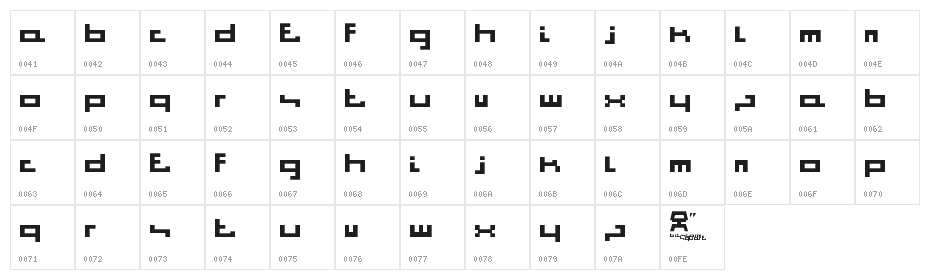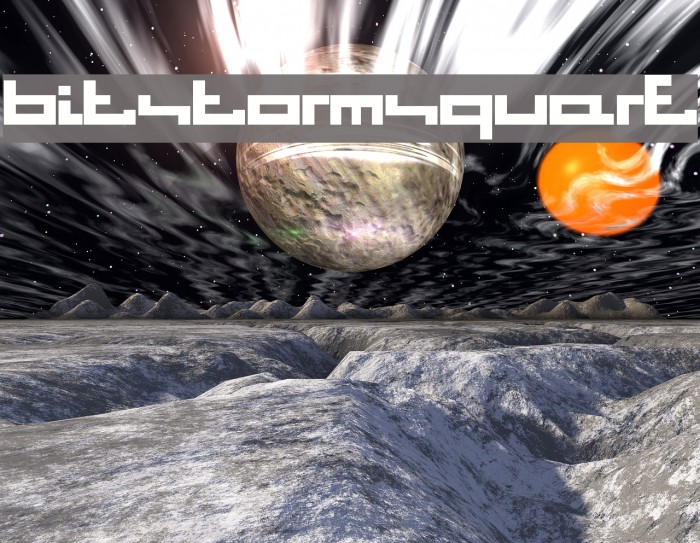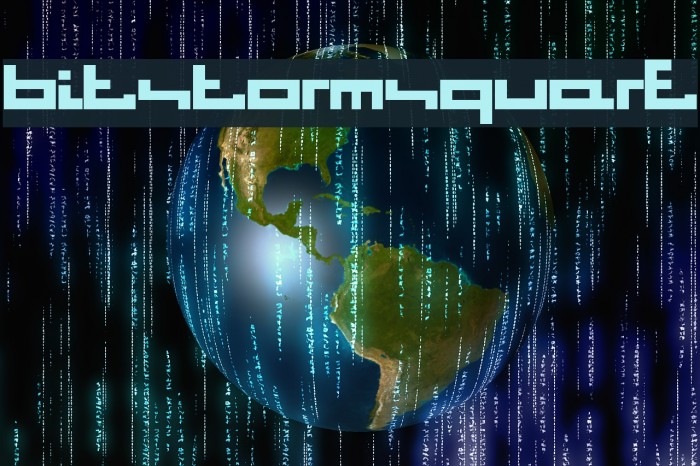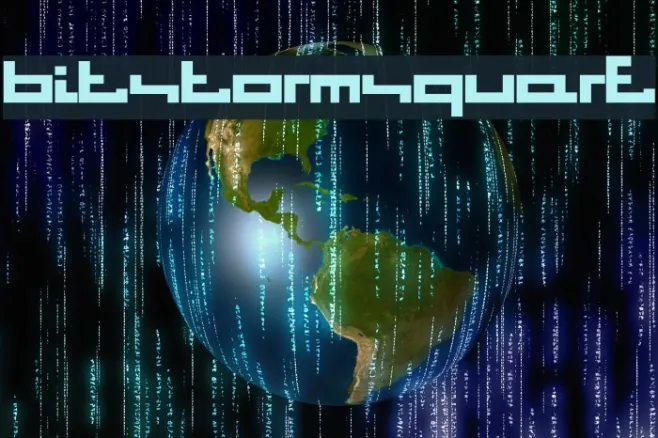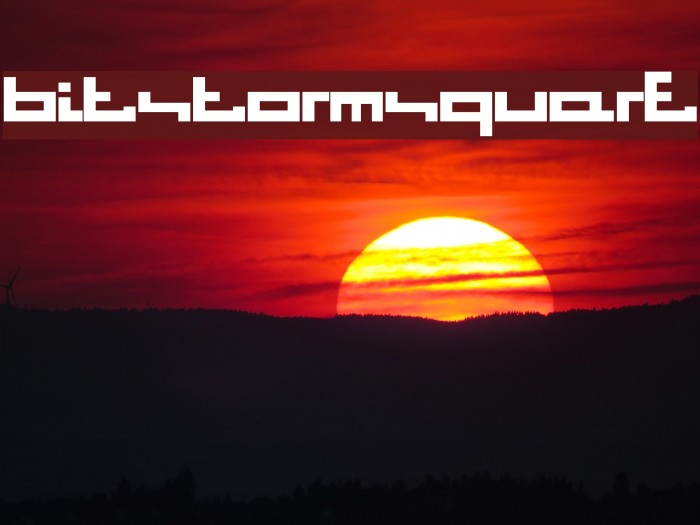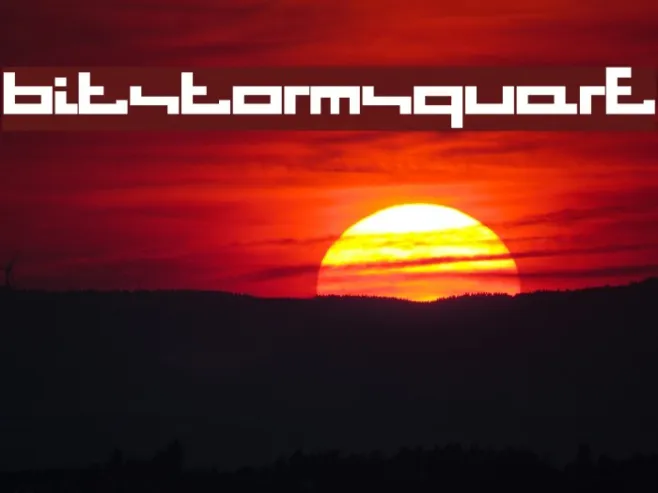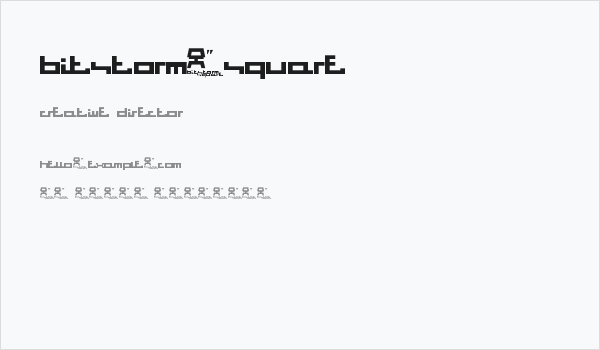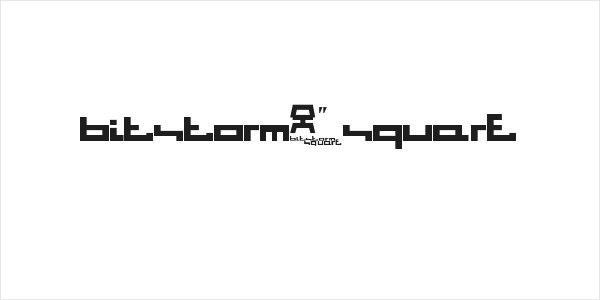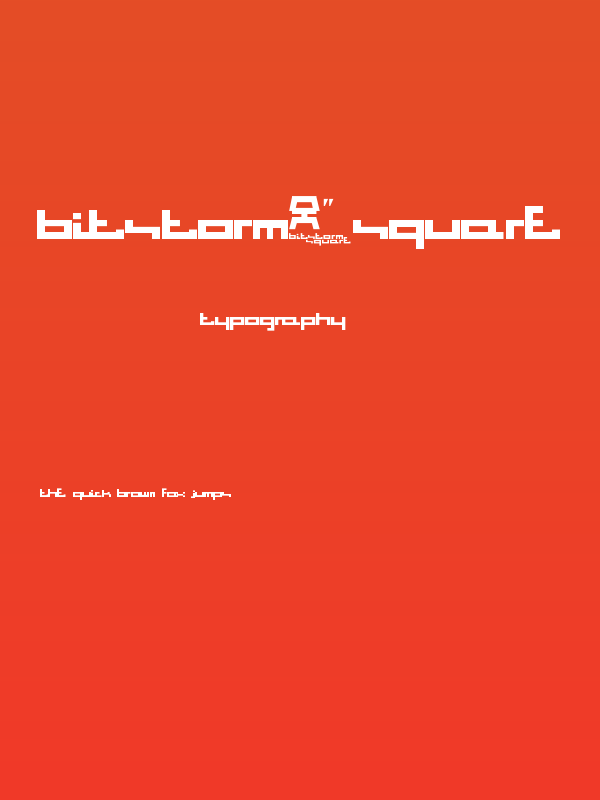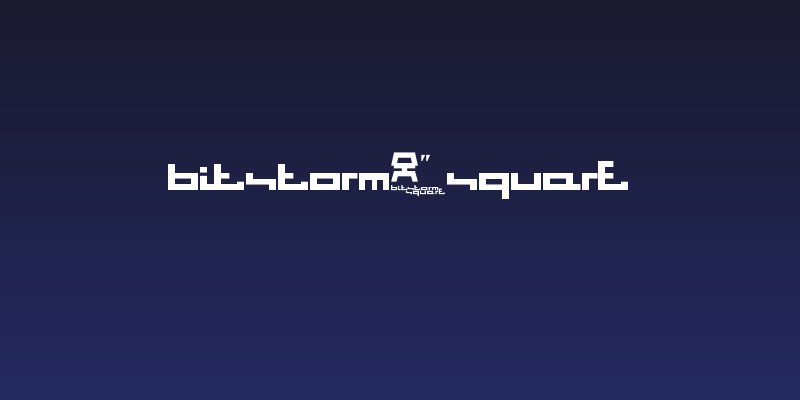
Bitstorm-SQUARE Font
Bitstorm-SQUARE Description
This font features a bold, geometric style with a distinctly digital and pixelated appearance. Each character is constructed with sharp, straight lines and right angles, giving it a blocky, square look reminiscent of early computer graphics or retro video games. The uniformity in the height of the characters creates a cohesive and structured feel, while the consistent thickness of the strokes adds to its bold presence. The font's design is minimalistic yet impactful, making it suitable for projects that require a modern and technological aesthetic.
Proposed ProjectsIdeal for video game graphics, tech-themed posters, digital art, and retro-inspired designs.